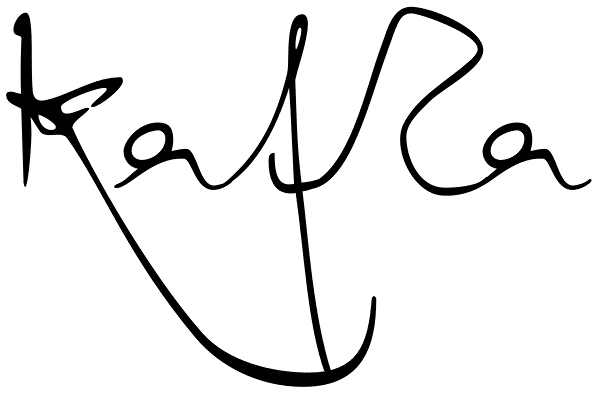
Kafka
This font is based on the handwriting of author Franz Kafka and captures his expressive handwriting style, using the manuscript of The Trial and his diaries as the primary reference. The font presents the elegance and nervousness with which he wrote...